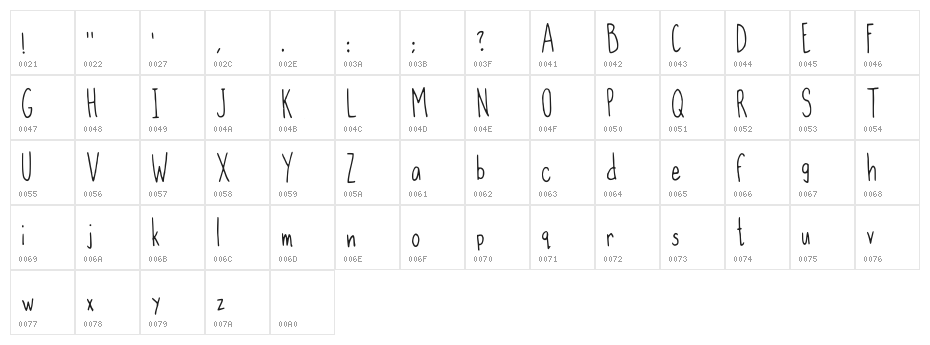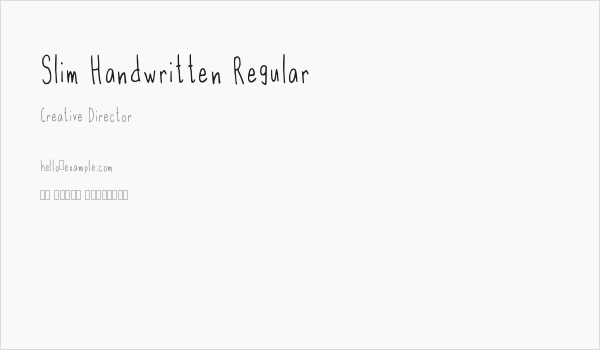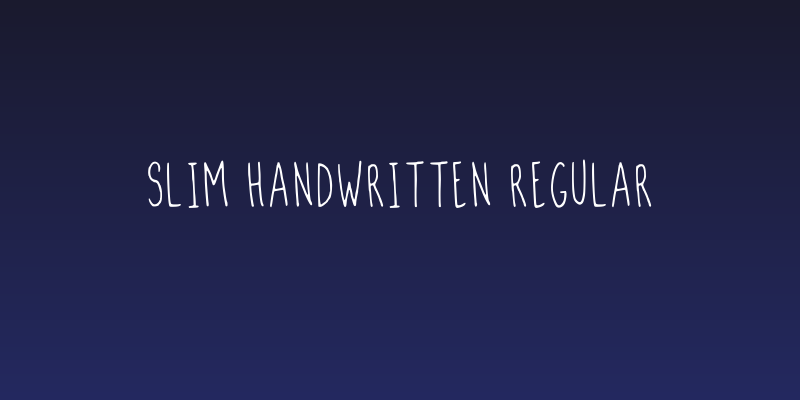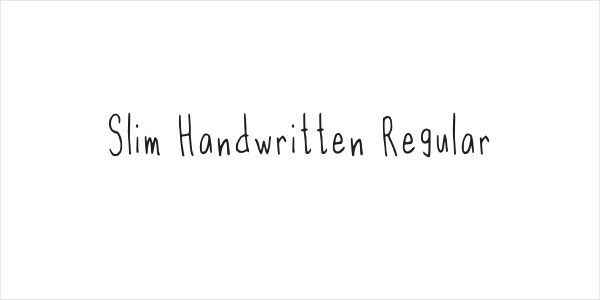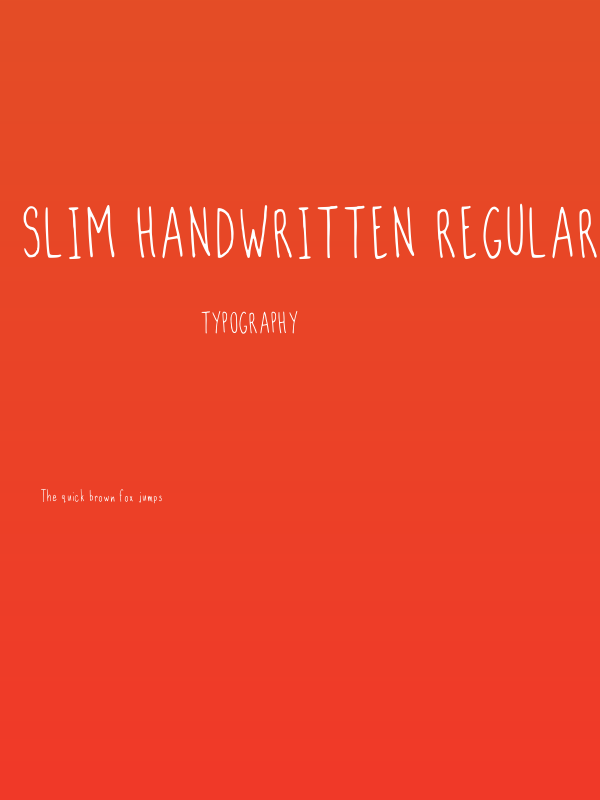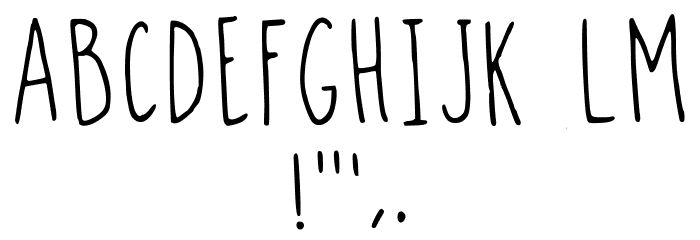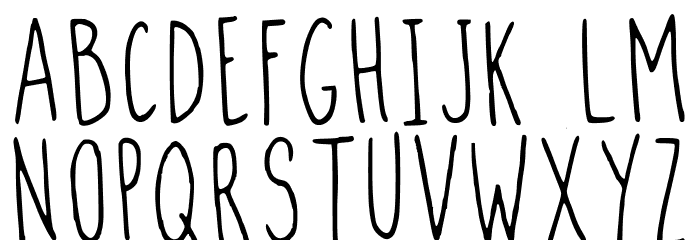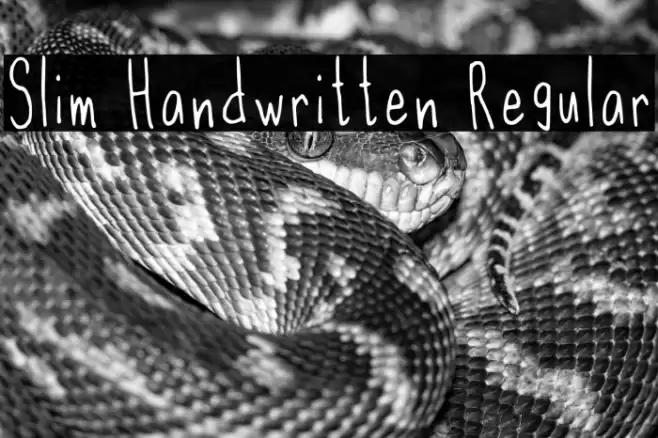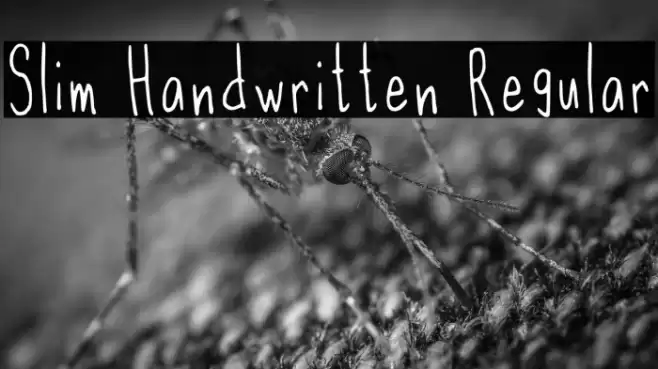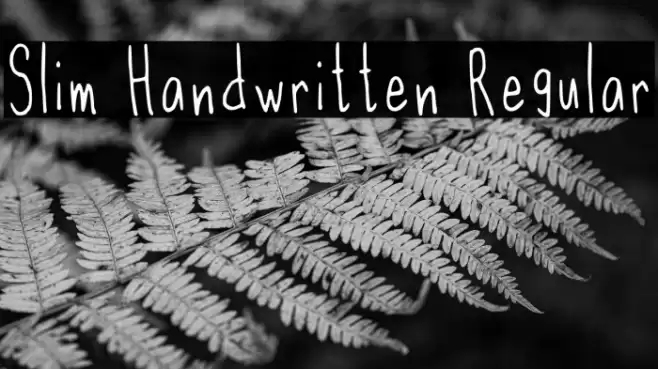
Slim Handwritten Regular Font
Slim Handwritten Regular Description
This font features a slim, handwritten style that exudes a casual and personal touch. The letters are tall and narrow, with a consistent stroke width that gives it a clean and modern appearance. The uppercase and lowercase letters maintain a playful yet legible form, making it suitable for informal and creative projects. The numbers and special characters follow the same handwritten aesthetic, adding to the font's cohesive look. Its simplicity and charm make it versatile for various design applications.
| Proposed Projects | Ideal for personal notes, greeting cards, creative posters, and informal branding. |